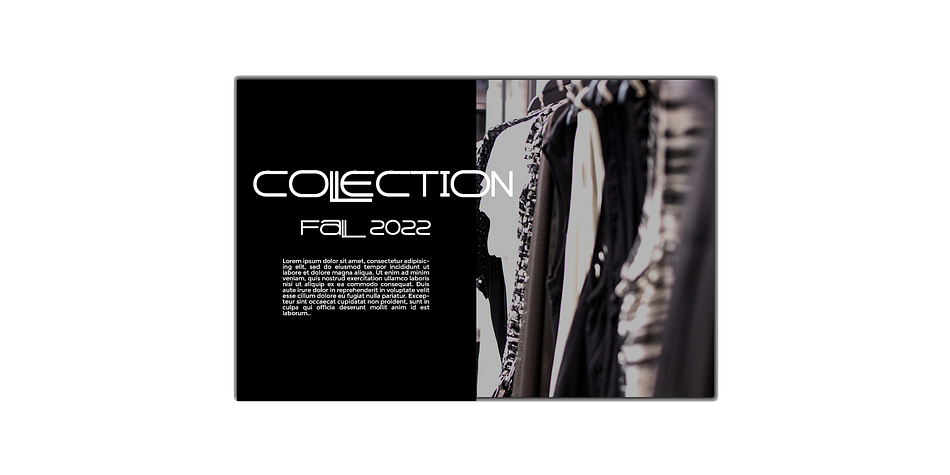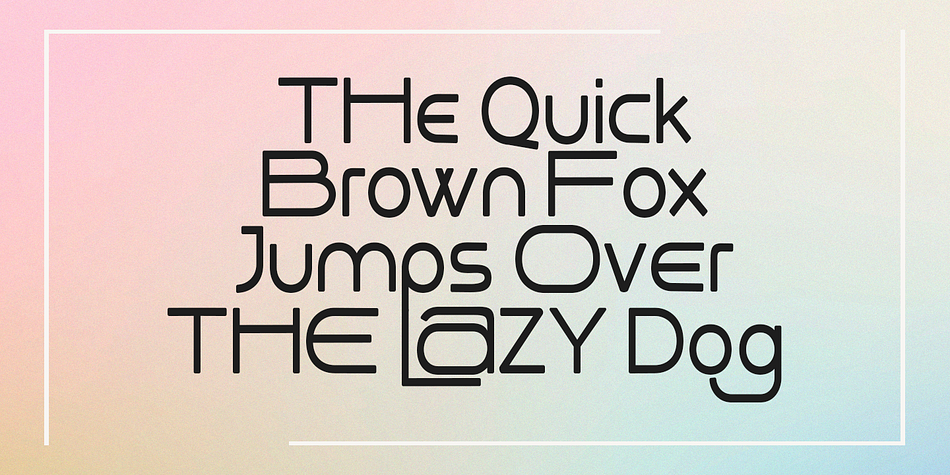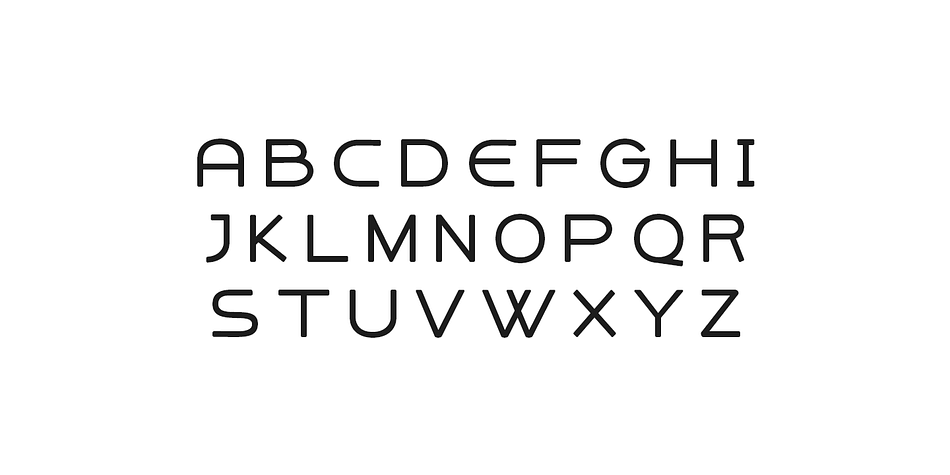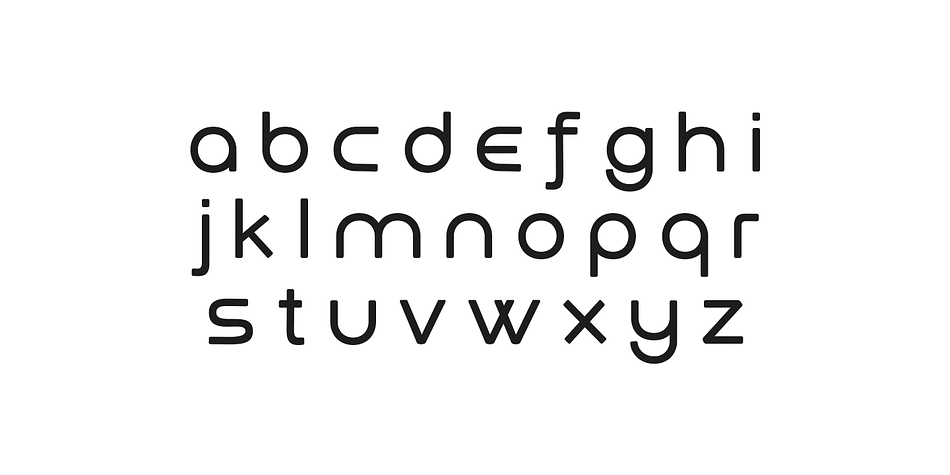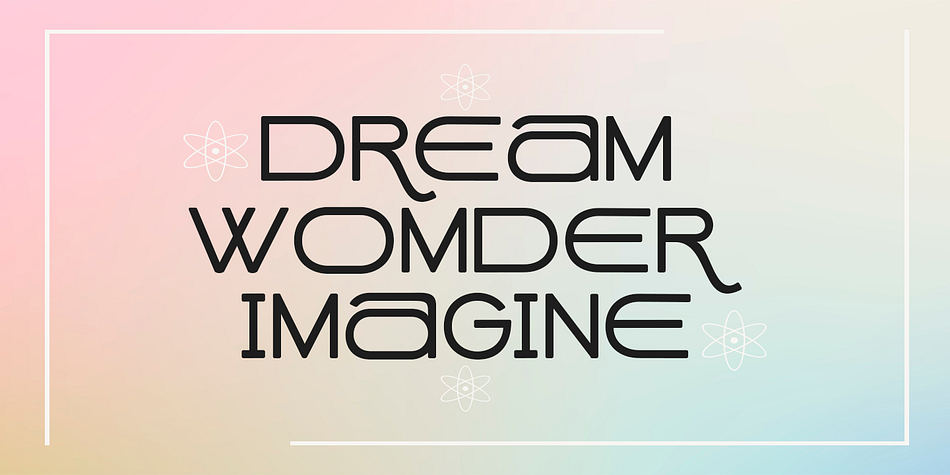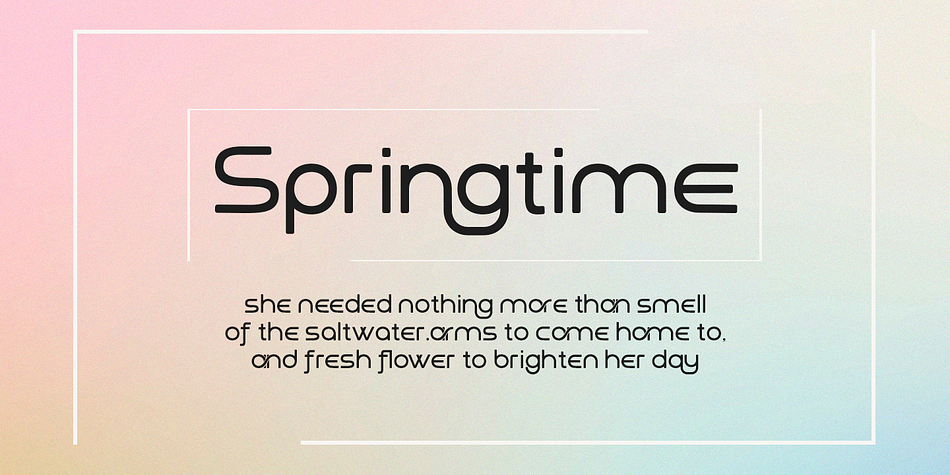
La Rose
La Rose is a retro and sans serif font family. This typeface has four styles and was published by Masa Type.
La Rose is Display Sans, designed to look modern & minimal in any setting. Designed for optimal readability, its clean geometric look is perfect for things like fashion, magazine, logo, branding, headers, titles, corporate brochure designs.
Typeface also supports Latin-based languages. Other details include 4 font weights, 290 characters, manually edited kerning and an Opentype alternative feature.